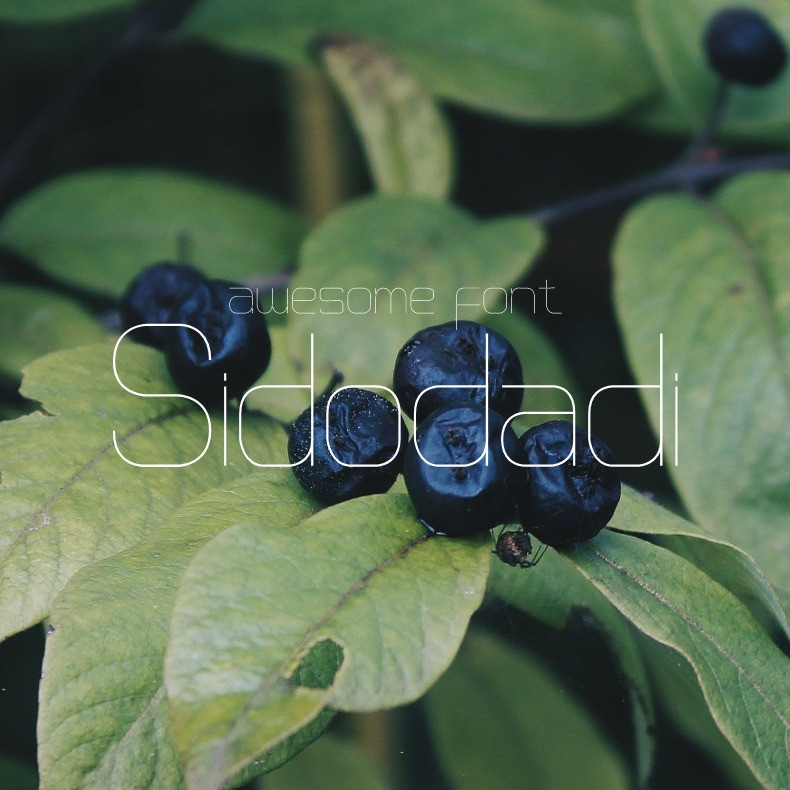
Sidodadi Font
Sidodadi Font, is a cool and modern look styled sans serif font. Add it confidently to your projects, and you will love the results. The only limit is your imagination. Try this now